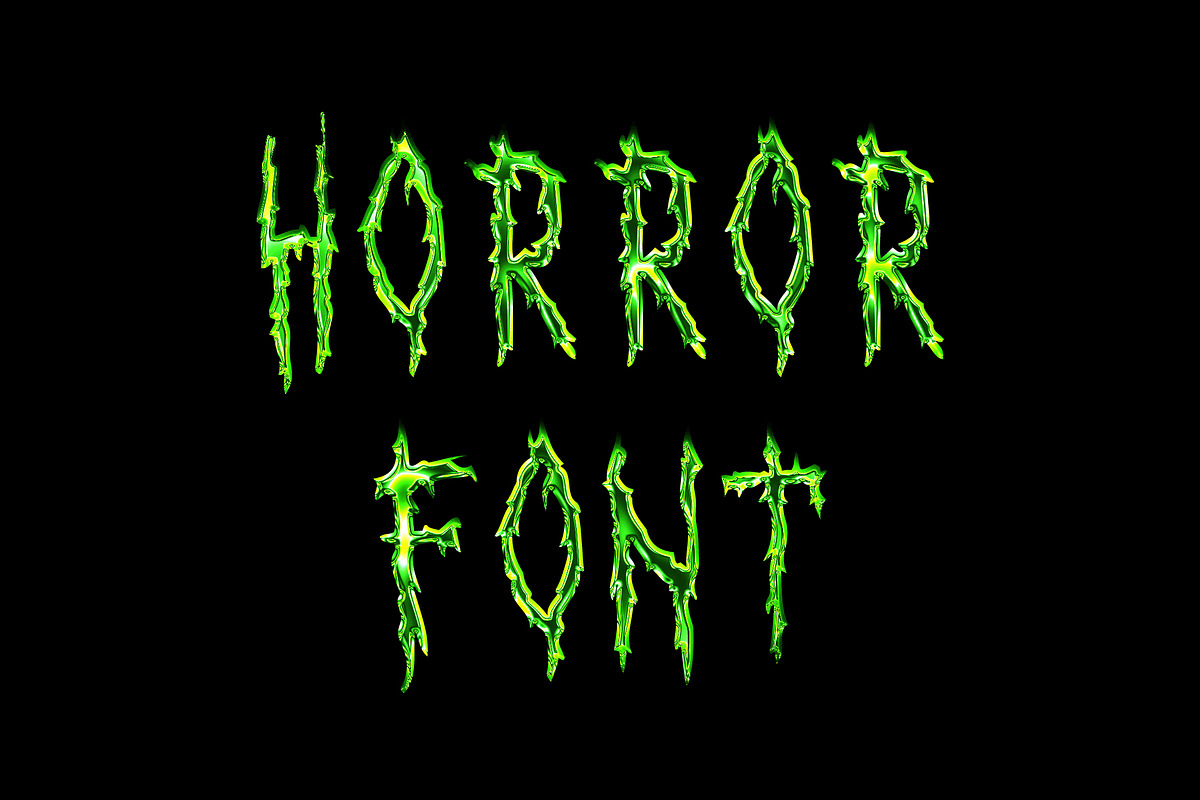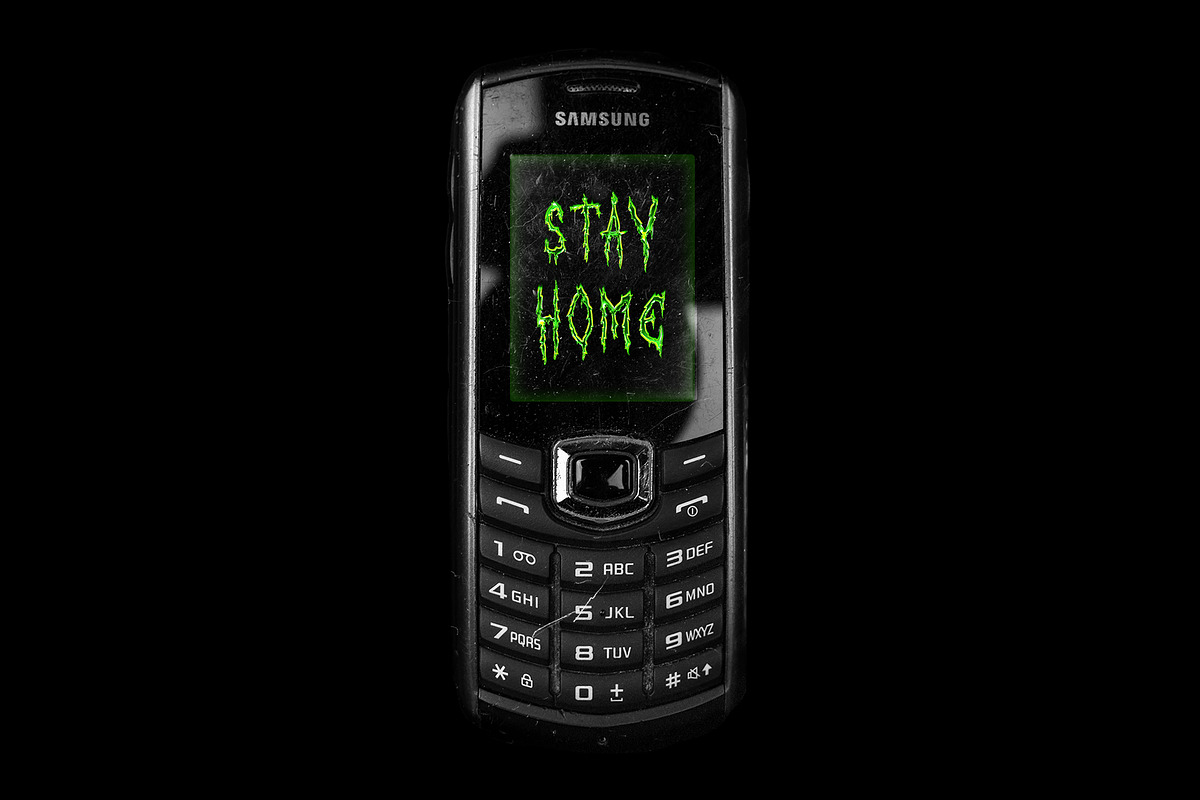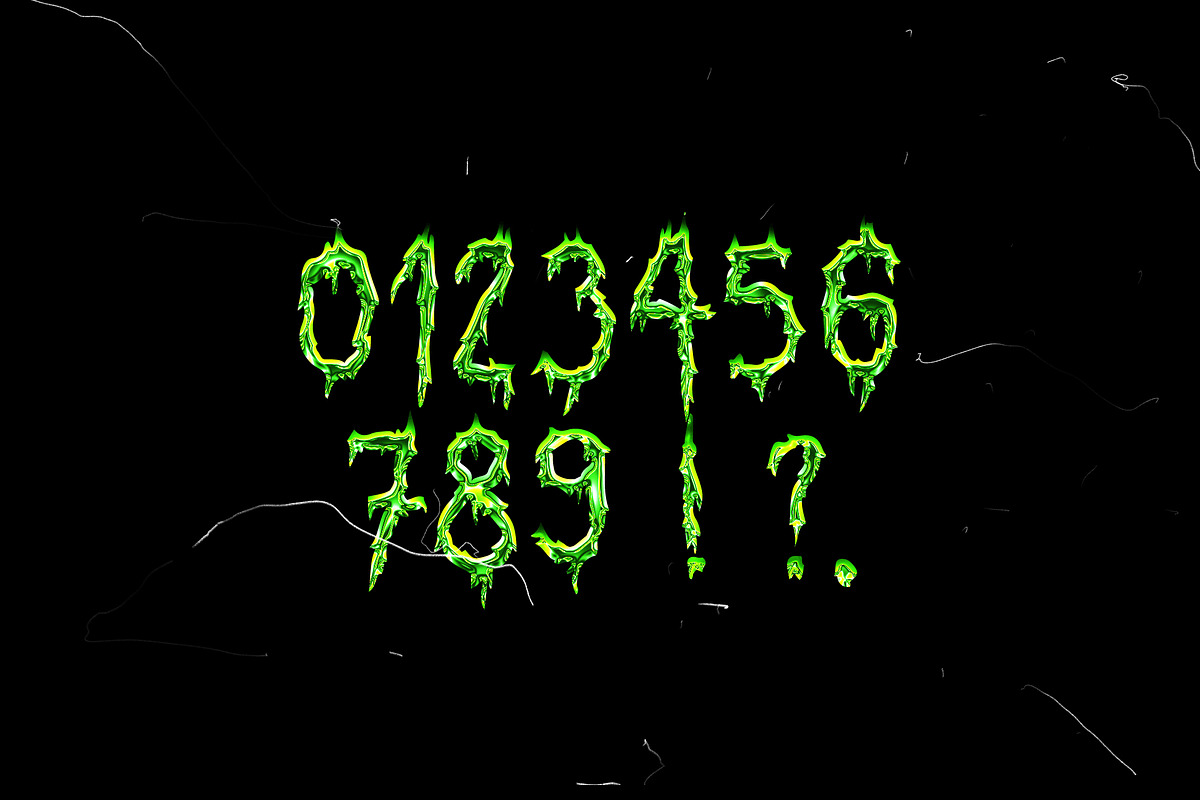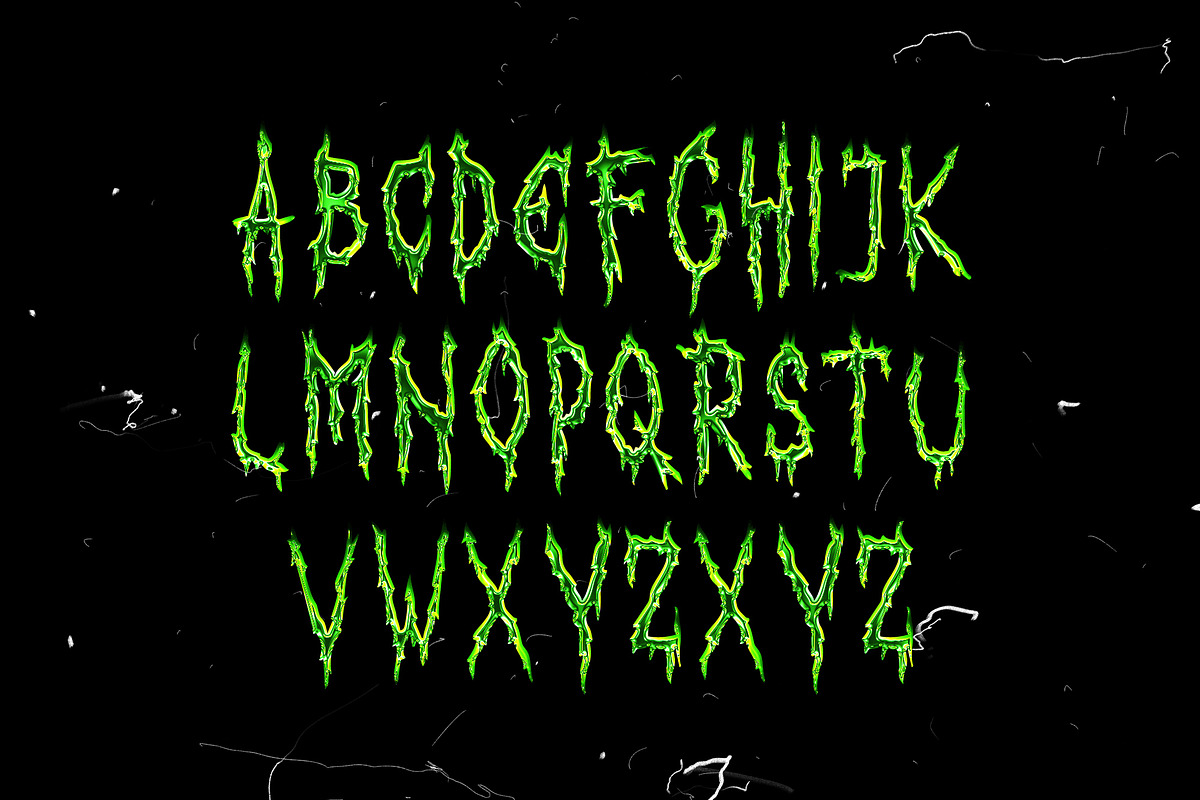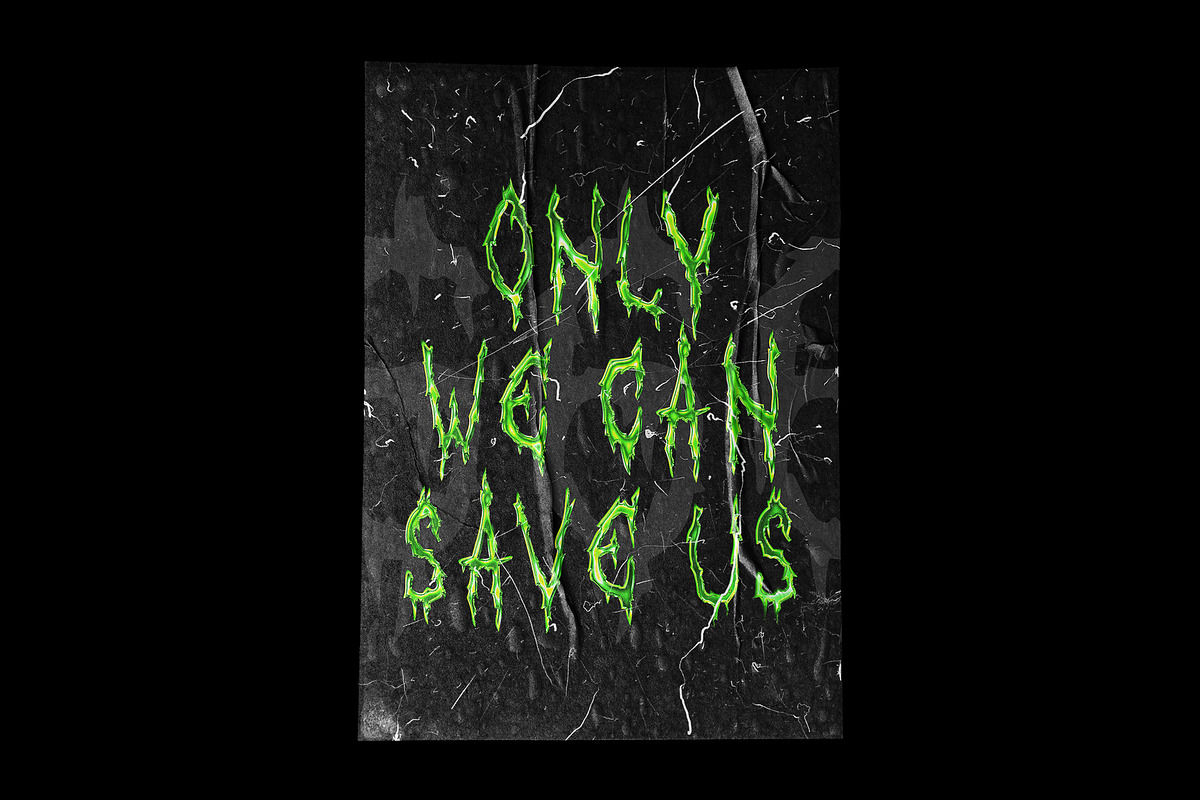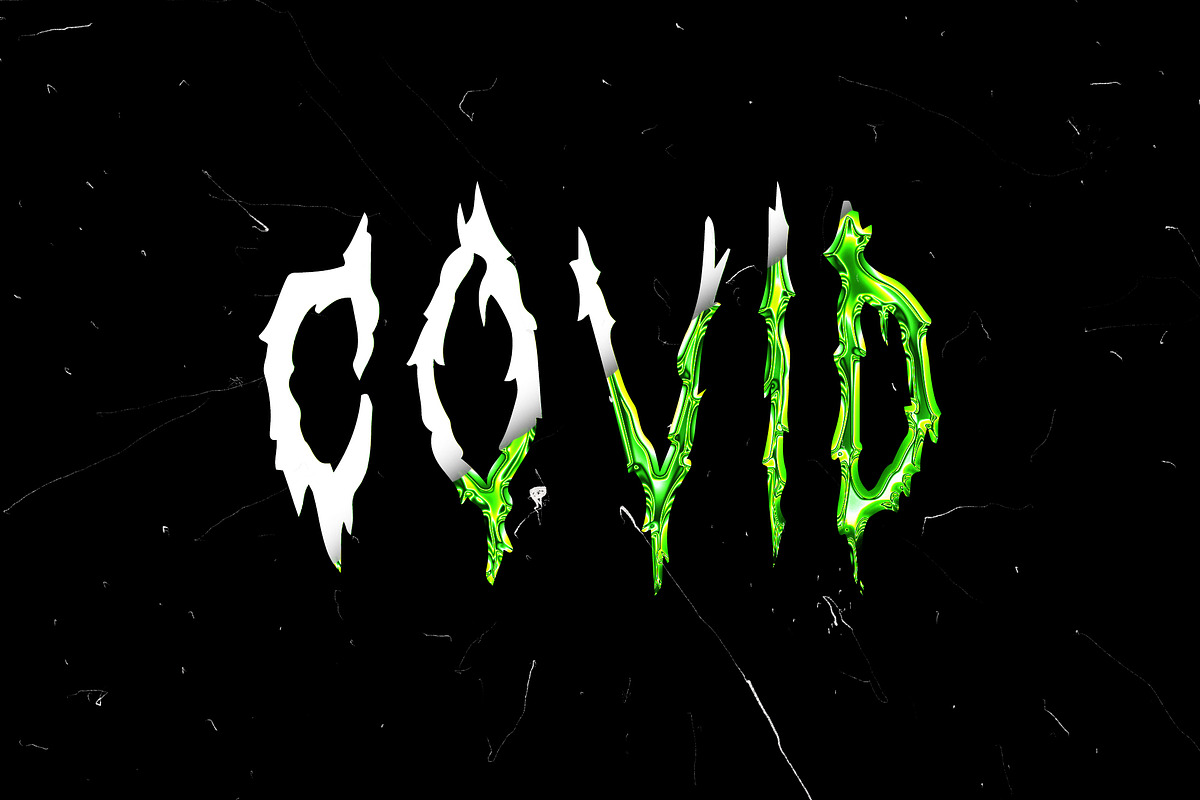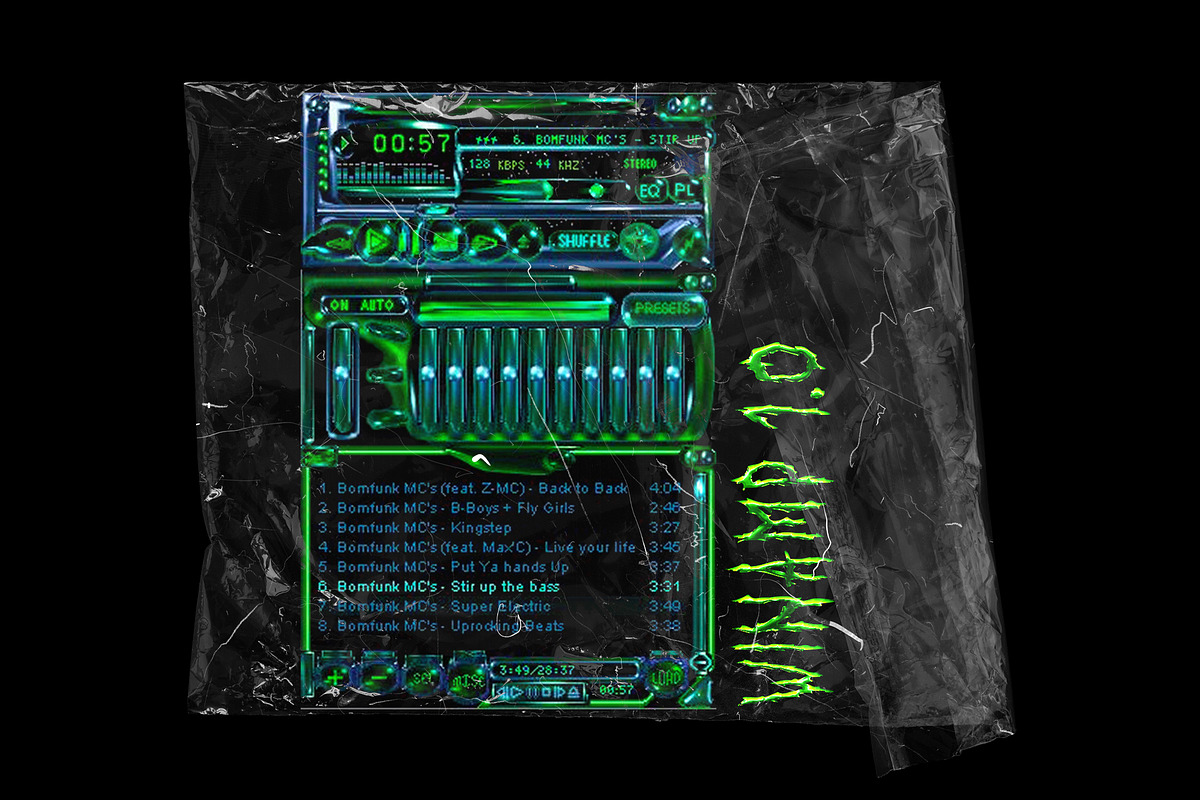
Horror Script Brush font
Horror is a handwritten font. Inspired by the current situation in the world. Horror will be a great asset for making your next design projects. It features 67 characters and has only all caps. The basic letters are included. Free for personal and commercial projects. Stay positive and wash your hands, get some air and go for a hike.
- It features 67 characters and has only all caps.
Why Horror Script Brush font is worth a look